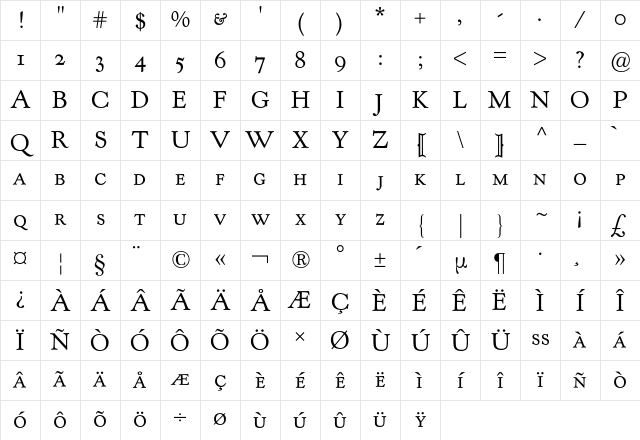
Kennerley Old Style Expert BQ Regular
Design Context for Kennerley Old Style Expert BQ
Kennerley Old Style Expert BQ is a composed and adaptable typeface that performs quietly and consistently across a wide range of design contexts.